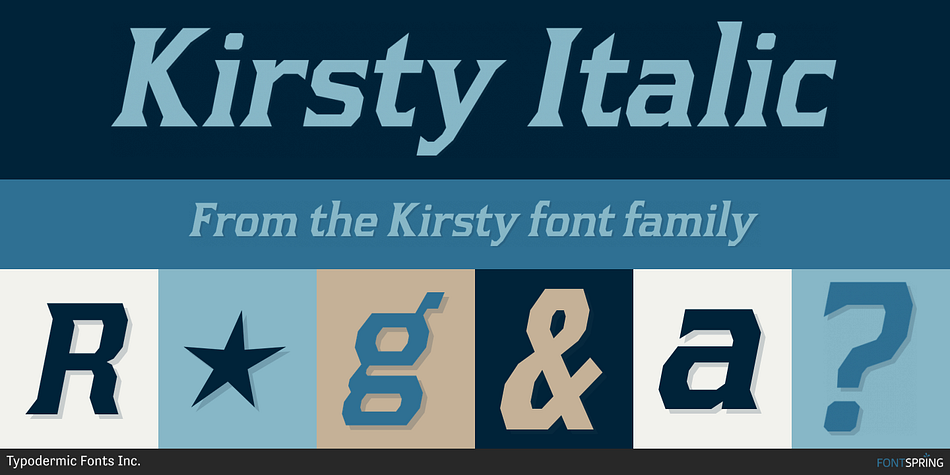
Kirsty Italic
Kirsty is a display serif and display slab font family. This typeface has ten styles and was published by Typodermic Fonts Inc.
Introducing Kirsty, the typeface that will give your designs a cutting-edge, contemporary feel. With its sharp, Latin-serif design, Kirsty is a modern take on the classic nineteenth-century railroad lettering. Released in 2000, this typeface quickly became a favorite for its unique octagonal shape and bold, commanding presence.
Now, with a proper lowercase, five weights, and obliques, Kirsty is more versatile than ever. Its sleek, angular lines make it perfect for graphic design, branding, and advertising, while the small caps add a touch of sophistication to any layout. Just be aware that not all languages are available in small caps, so be sure to check if your application supports them.